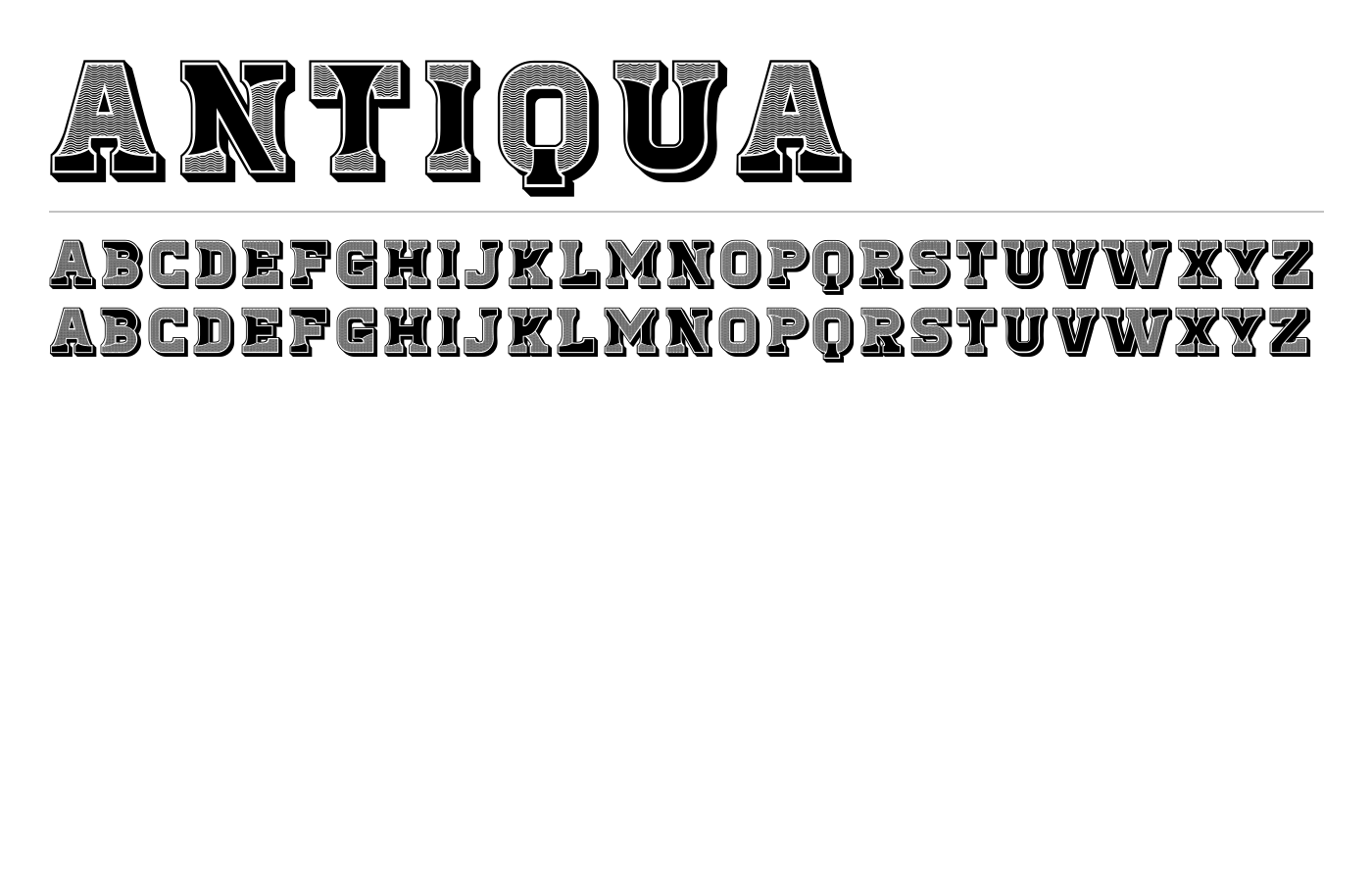
Antiqua is a bold, decorative slab serif font with a strong vintage character, featuring thick, blocky serifs and eye-catching layered shading that adds depth and texture. Its uppercase letterforms are sturdy and playful, making it ideal for retro-inspired branding, posters, or headlines where a bold and memorable impact is desired. This font works well in designs that want to evoke a classic, timeless feel with a touch of fun and flair.
Antiqua Font
About Antiqua Font